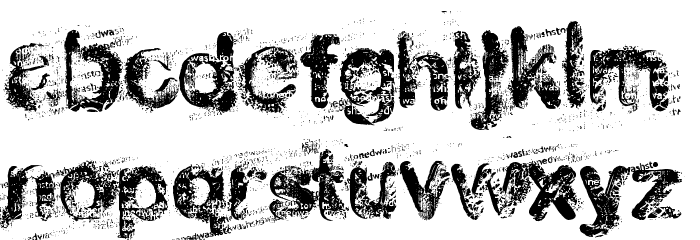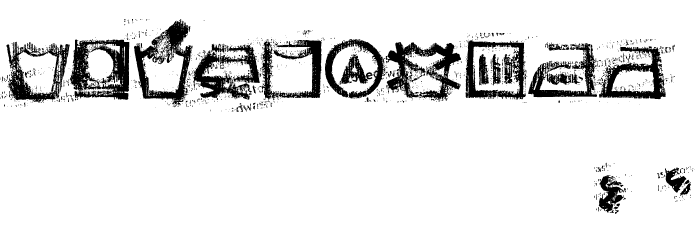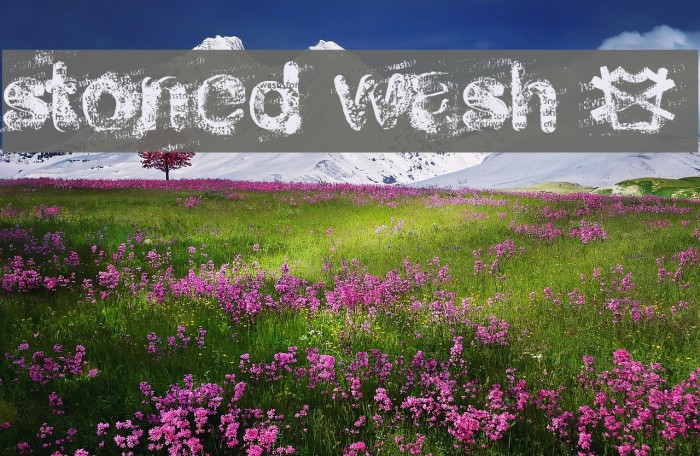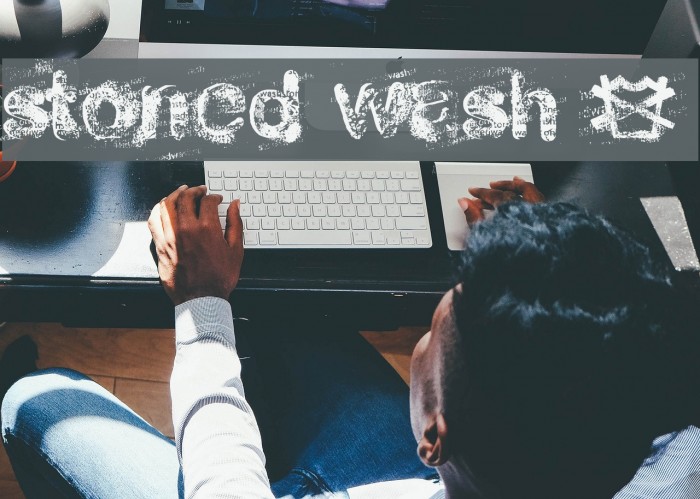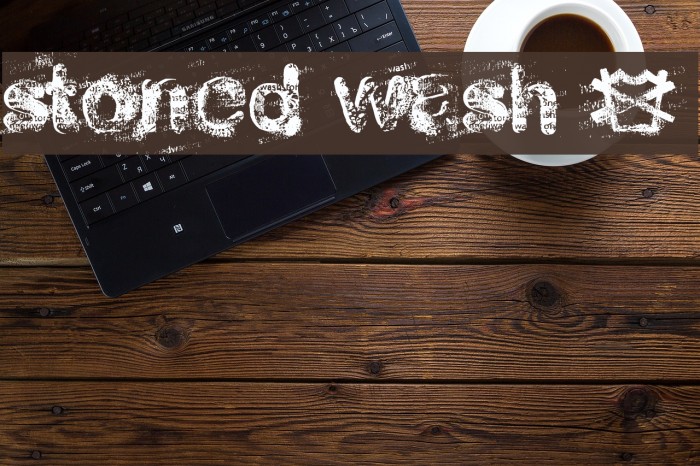
stoned wash 6 Font
This font exhibits a rugged, distressed style reminiscent of a stone-washed texture. The characters are bold and have a rough, textured appearance, giving them a unique, worn-out look. The uppercase and lowercase letters maintain a consistent style, with irregular edges and a slightly grunge aesthetic. The numbers and special characters follow the same design, ensuring a cohesive appearance across all glyphs. This font's distinctive style makes it stand out, ideal for projects that require a bold, edgy look.
A rugged, distressed font with a stone-washed, textured appearance.
- Proposed Projects: Ideal for album covers, posters, branding for edgy or alternative products, and any design needing a bold, grunge aesthetic.